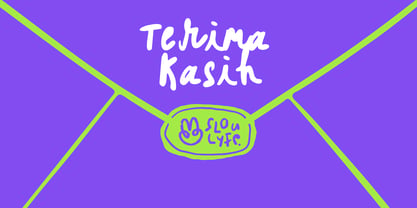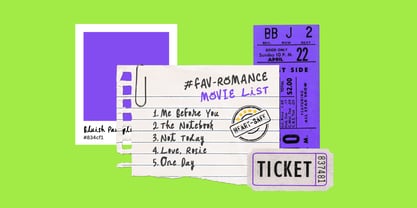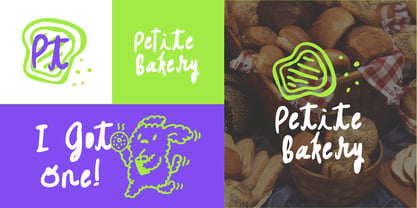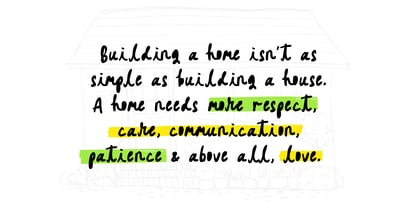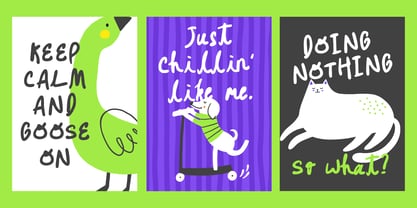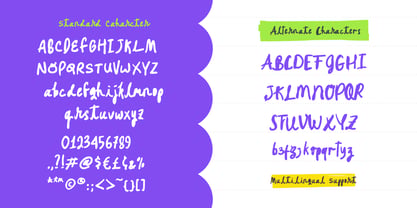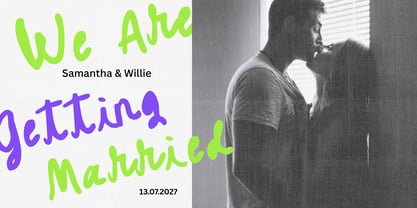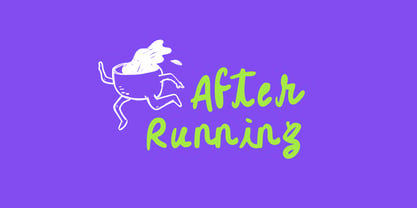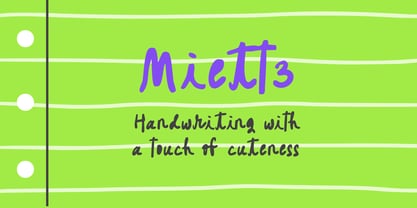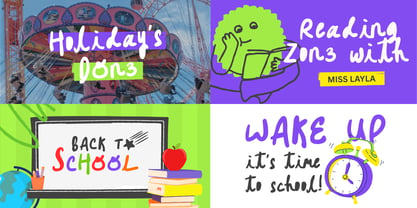
Miette
Die Schriftfamilie Miette wurde von Amelia Dian Isnaini entworfen und von Sloulyfe Studio veröffentlicht. Miette enthält 1 Stile. Mehr über diese Familie
Miette has the easygoing charm of something written with a favorite marker on a sketchbook page. Its chunky handwritten strokes, playful curves, and slightly quirky letterforms give every word a lively, imperfect rhythm, balancing cuteness with a confident dose of personality.